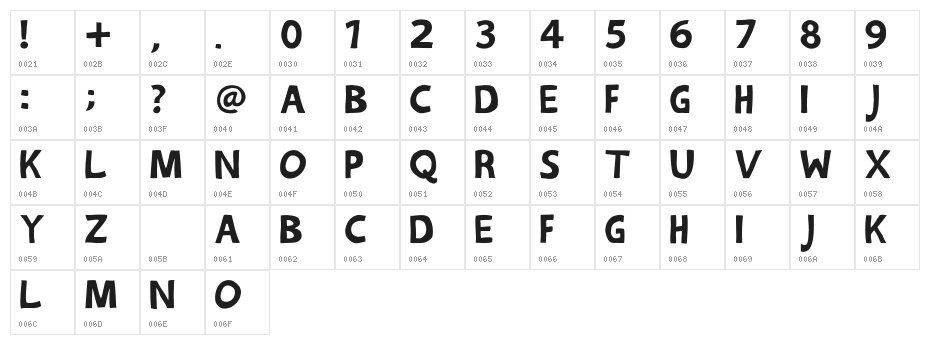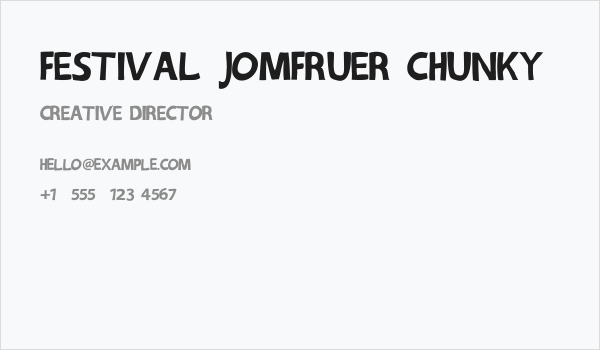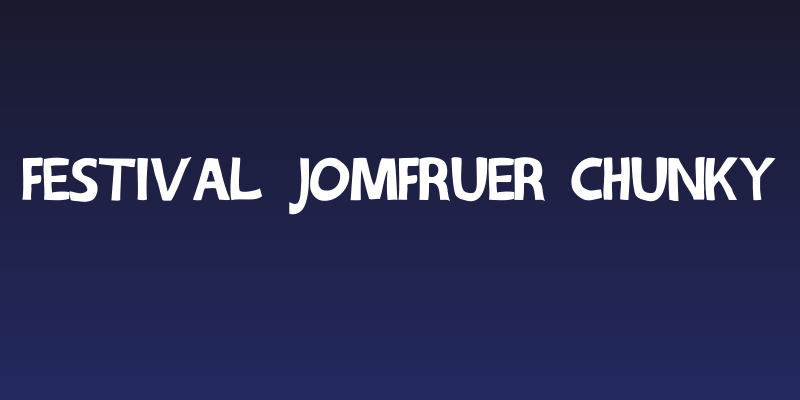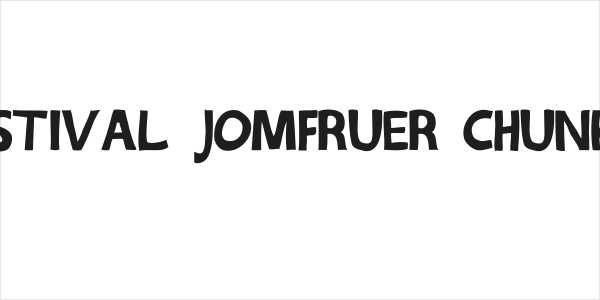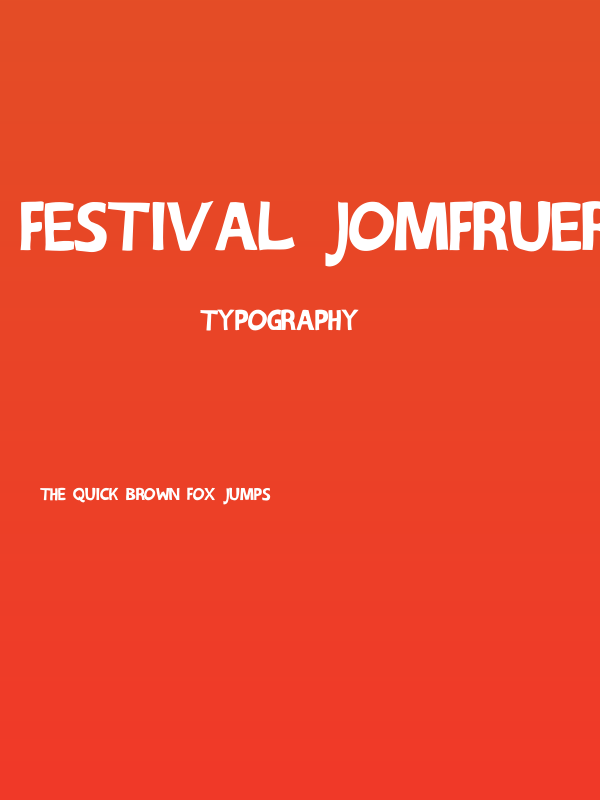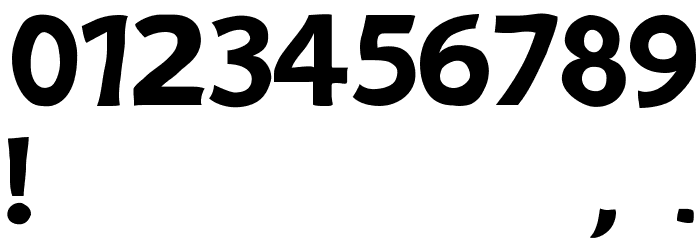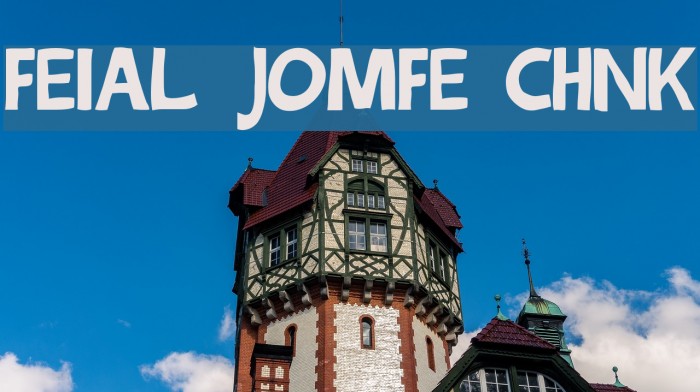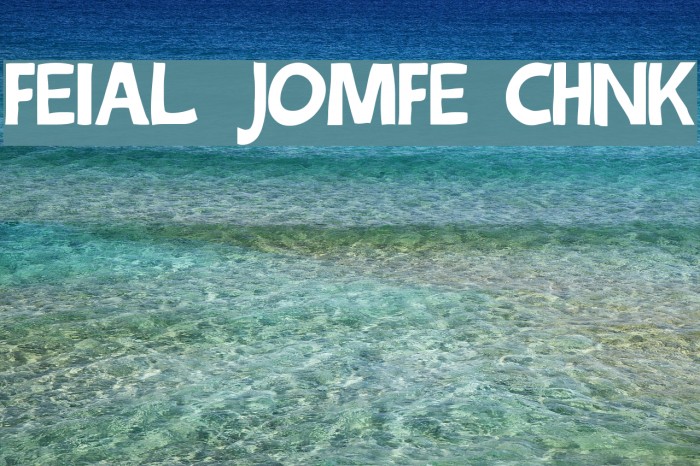
Festival Jomfruer chunky Font
Festival Jomfruer chunky Description
This font features bold, chunky letters with a playful and dynamic appearance. The characters are slightly irregular, giving them a hand-drawn, whimsical feel. The strokes are thick and consistent, contributing to a strong visual impact. The overall design is informal and friendly, making it suitable for creative and fun projects. The uppercase and lowercase letters maintain a consistent style, while the numbers and punctuation are equally bold and expressive.
| Overall Style | Playful, Whimsical |
| Use Case | Headlines, Posters, Branding |
| Proposed Projects | Ideal for children's books, playful branding, event posters, and creative social media graphics. |